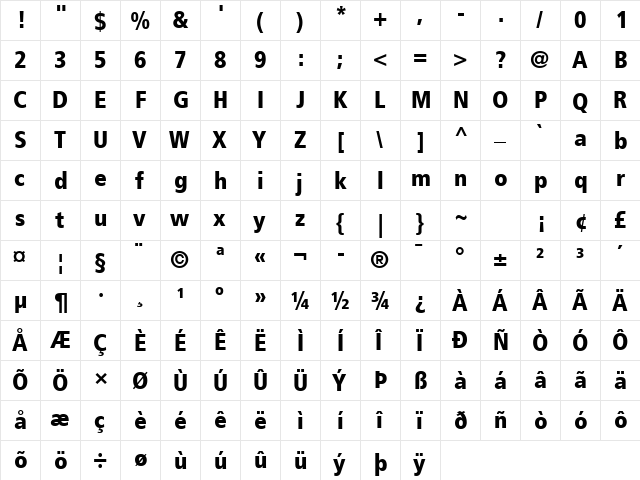
Frutiger LT Com 77 Black Condensed
| Foundry | Linotype GmbH |
| Designer | Adrian Frutiger |
Design Context for Frutiger LT Com Typeface
Frutiger LT Com is a composed and adaptable typeface that performs quietly and consistently across a wide range of design contexts. Its slender proportions lend an understated elegance to any composition. Its narrow stance lets it pack a punch even in space-constrained designs.